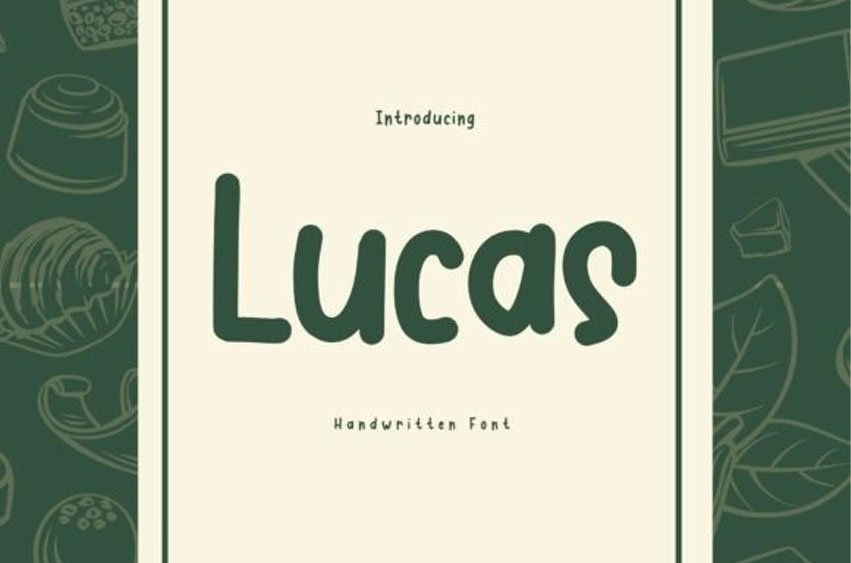
for all your favorite projects, such as blog posts, logos, branding, ads, invitations, greeting cards, planners, photo albums, decorations, and much more.
Lucas Handwritten Font Preview